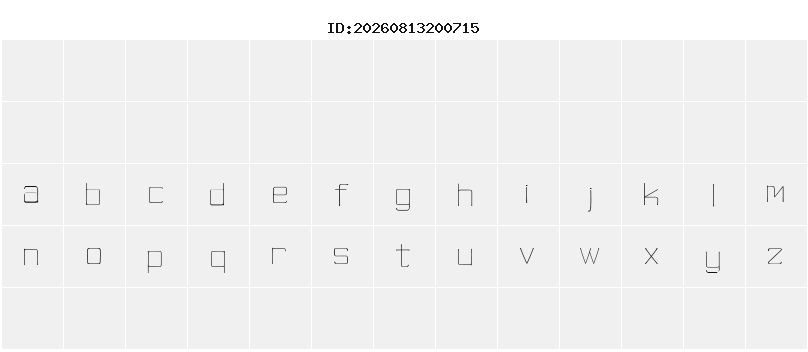
skinny minnie Preview
• Font Name: skinny minnie
• Full Font Name: skinny minnieRegular
• Character Count: 26
About skinny minnie.ttf
skinny minnie.ttf is a modern, elegant sans-serif font designed for ultimate readability and visual harmony. Perfect for branding, headlines, web design, and print materials.